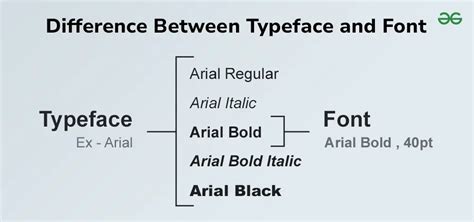
Font VS Typeface (The Simple Difference Explained)
Font Typeface Difference. Web what is a typeface? These are typefaces that include serifs, which are slight projections added.
These are typefaces that include serifs, which are slight projections added. Web what is a typeface?
Web what is a typeface? These are typefaces that include serifs, which are slight projections added. Web what is a typeface?